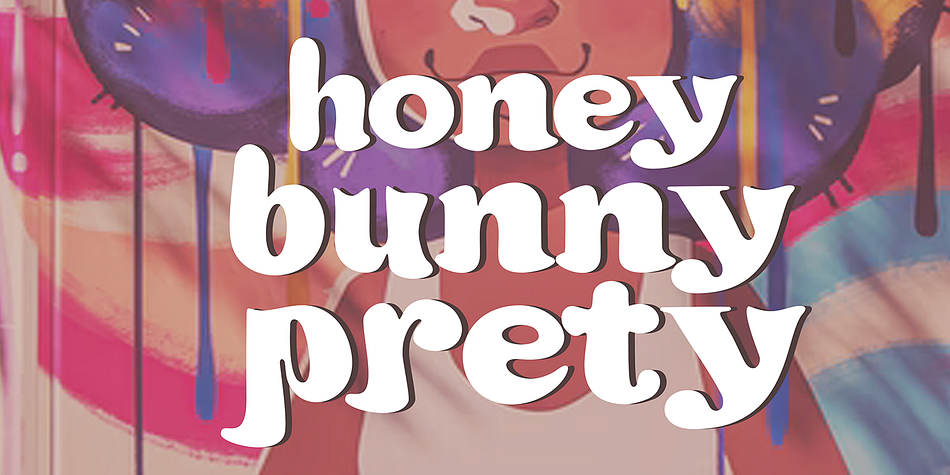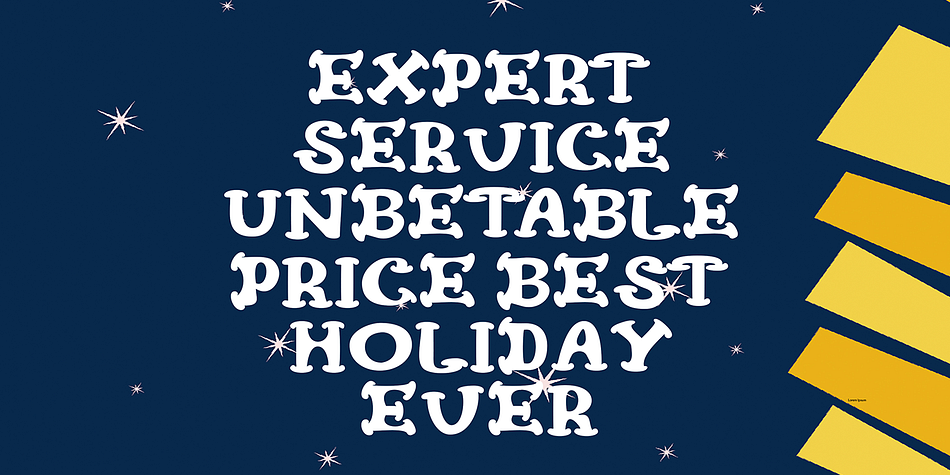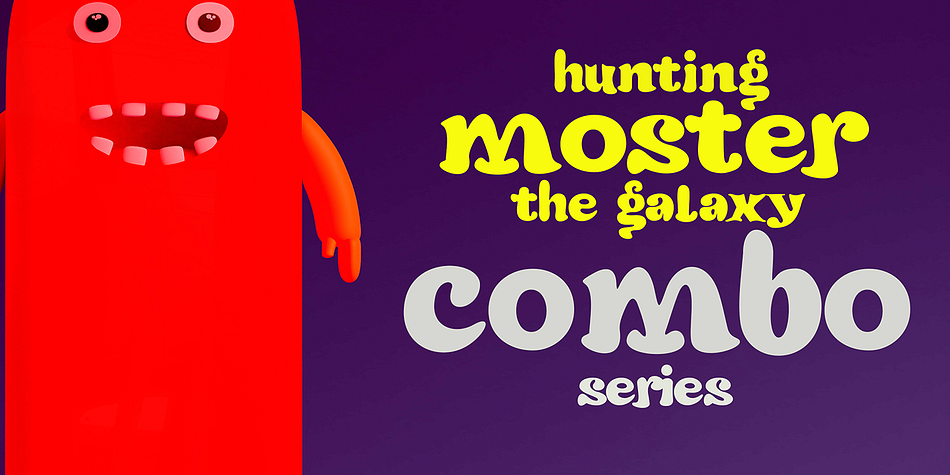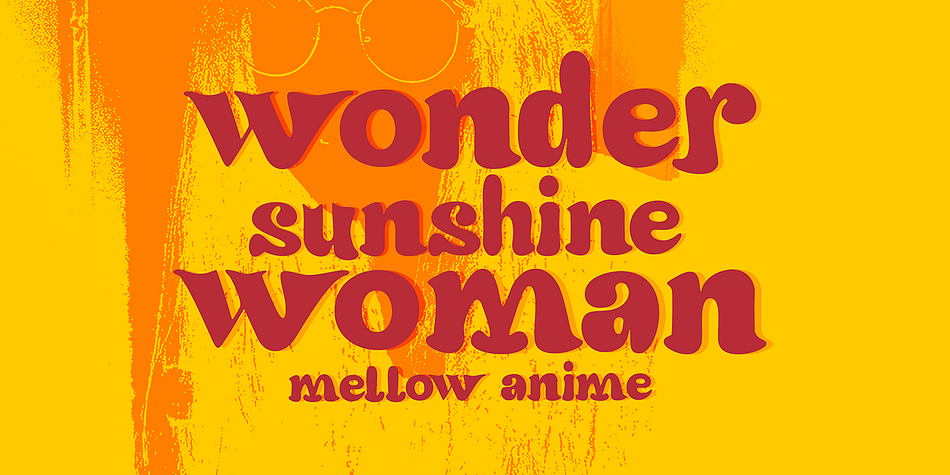
Super Blaster
Super Blaster is a comic and display serif font family published by Gatype.
Super Blaster is the original Comic Font typeface enhanced with smoothed corners to give the typeface a more playful charisma. Super Blaster font if you want to use this font for your work can be used easily and simply because there are many features in it contains a complete collection of lowercase and uppercase letters, a wide range of punctuation, numbers, and multilingual support.
Styles Comic, Display Serif